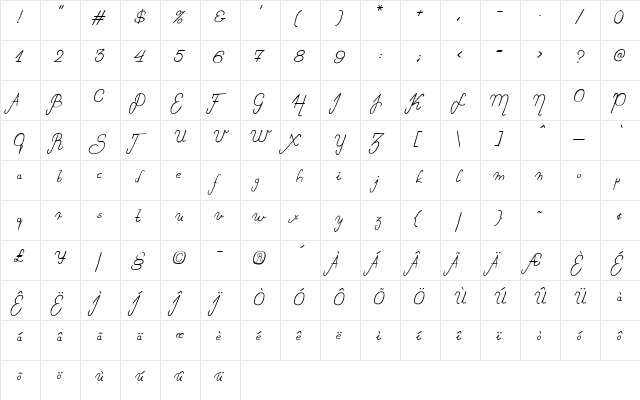
Sweet Lady Italic
Design Context for Sweet Lady Typeface
Sweet Lady is a composed and adaptable typeface that performs quietly and consistently across a wide range of design contexts. The slanted form adds forward momentum and visual energy.
Pro Tip: Try Sweet Lady for annotation and caption copy alongside an upright companion — the contrast in angle creates a dynamic but ordered typographic system.